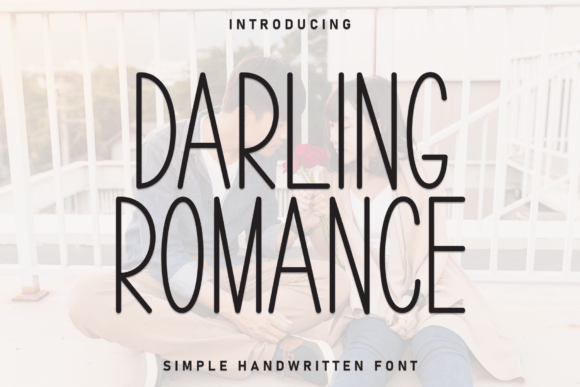
Darling Romance: A Warm Handwritten Display Font for Editorial Design
As someone who crafts blogs, ebooks, newsletters, and print-ready guides—day in and day out—I pay close attention to how type shapes tone before a single word is read. Darling Romance stands out not just for its charm, but for how thoughtfully it serves editorial intent. This is a handwritten display font that doesn’t shout—it invites. Its gentle curves, subtle irregularities, and balanced spacing lend warmth without sacrificing clarity, making it especially effective where emotional resonance matters most: wedding guides, lifestyle blogs, coaching workbooks, and heartfelt digital magazines.
Visually, Darling Romance feels both intentional and effortless—a rare balance in script fonts. It avoids the overly ornate or fragile tendencies of some handwritten typefaces. Instead, its strokes carry consistent pressure, its letterforms breathe with generous x-height and open counters, and its rhythm supports legibility at larger sizes. As a display font, it’s designed for impact—not extended reading—but its personality translates powerfully across mediums: from a soft serif body text in an ebook to crisp SVG export for a newsletter banner.
In editorial layouts, Darling Romance excels where hierarchy meets humanity. Use it for magazine cover titles to signal approachability and authenticity. Apply it to chapter openers in a recipe ebook to evoke care and personal voice. Drop it into quote graphics for a coaching newsletter—its natural flow makes wisdom feel spoken, not typeset. Even in printable planners or lead magnets, it adds tactile warmth without compromising structure. Because it’s built as a display font, it works best at 24pt and up on screen, and 18pt+ in print—ideal for headings, section dividers, and accent typography, but not body copy.
Readability across devices is thoughtful here. On mobile, Darling Romance holds up well in hero banners or email headers when paired with appropriate line-height and contrast. In PDF exports—especially for client-facing workbooks or branded guides—it renders cleanly with embedded outlines, preserving its character without hinting artifacts. For printables, its clean vector construction ensures sharp edges even at small headline sizes (though we recommend keeping it above 16pt for optimal warmth and recognition).
Font pairing is where Darling Romance truly shines in editorial practice. Think of it as the voice; the supporting typeface is the ear. Pair it with a warm serif like Playfair Display or EB Garamond for blog headers and article leads—serif body text grounds the handwritten energy while letting Darling Romance anchor the visual tone. For digital-first newsletters or modern magazines, try it with a neutral sans serif like Inter or Manrope: clean captions, navigation labels, and pull-quote attributions create breathing room around Darling Romance’s expressive forms. Avoid pairing it with other scripts or highly decorative fonts—its strength lies in contrast, not competition.
What makes Darling Romance especially useful for independent creators is its practical feature set. It includes standard ligatures for natural word flow, stylistic alternates for customizing tone (a slightly bolder ‘a’, a more tapered ‘g’), and multilingual support covering Western European languages—enough for most English-language publications with Spanish, French, or German excerpts. There’s no variable weight axis, but the included regular and bold weights give enough flexibility for layered hierarchy: bold for main headlines, regular for subheads or short quotes.
Consider how Darling Romance functions within your publication identity. A wellness blog might use it only for episode titles in a podcast newsletter—keeping the rest of the layout clean and scannable. A wedding planning ebook could apply it to chapter titles, envelope callouts, and “RSVP” accents, reinforcing intimacy without overwhelming the reader. A quarterly digital magazine might reserve it exclusively for cover lines and pull quotes, letting its presence feel intentional and earned—not decorative. That restraint is what separates effective editorial typography from visual noise.
It’s also worth noting where Darling Romance isn’t the answer. Don’t force it into navigation menus, data tables, or long-form captions. It won’t serve accessibility goals as a UI font—its handwritten nature limits screen reader compatibility and WCAG contrast compliance in small sizes. But that limitation is by design: display fonts like Darling Romance are meant to be focal points, not foundations. Their job is to humanize, not systematize.
For creators building recognizable, emotionally intelligent brands—whether through a subscription-based newsletter, a series of printable workbooks, or a boutique digital magazine—Darling Romance offers more than aesthetics. It’s a tool for tonal consistency. When readers see that familiar, friendly hand-drawn ‘D’ or the gentle tilt of its ‘R’, they register continuity—not just across issues or seasons, but across touchpoints: email subject lines, Instagram quote cards, printable checklists, and cover thumbnails. That kind of cohesion builds trust, slowly and quietly.
Ultimately, Darling Romance earns its place in editorial workflows because it answers real questions: How do we make a wedding guide feel personal, not generic? How do we signal warmth in a coaching workbook without sacrificing professionalism? How do we distinguish a lifestyle blog’s voice in a crowded feed? The answer isn’t always more words—it’s the right typeface, used with intention, placed where it can do the most emotional work. And in that space, Darling Romance doesn’t just look lovely. It performs.